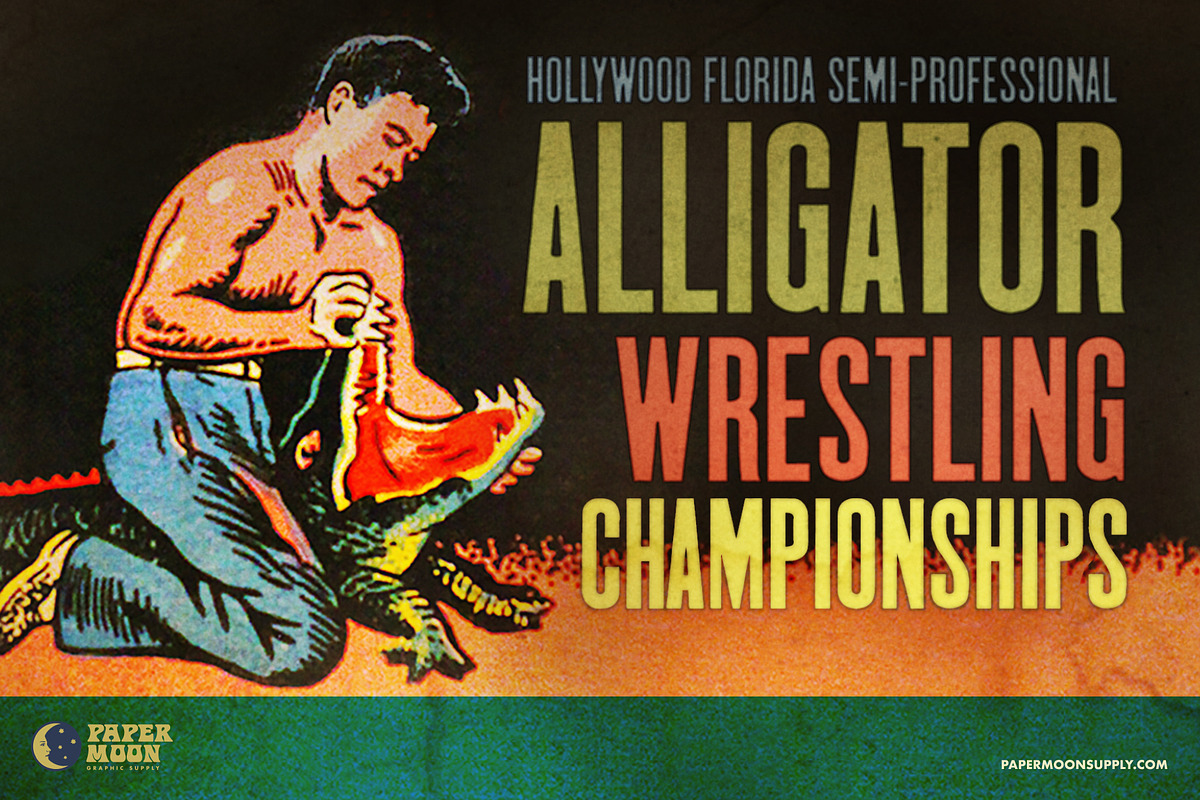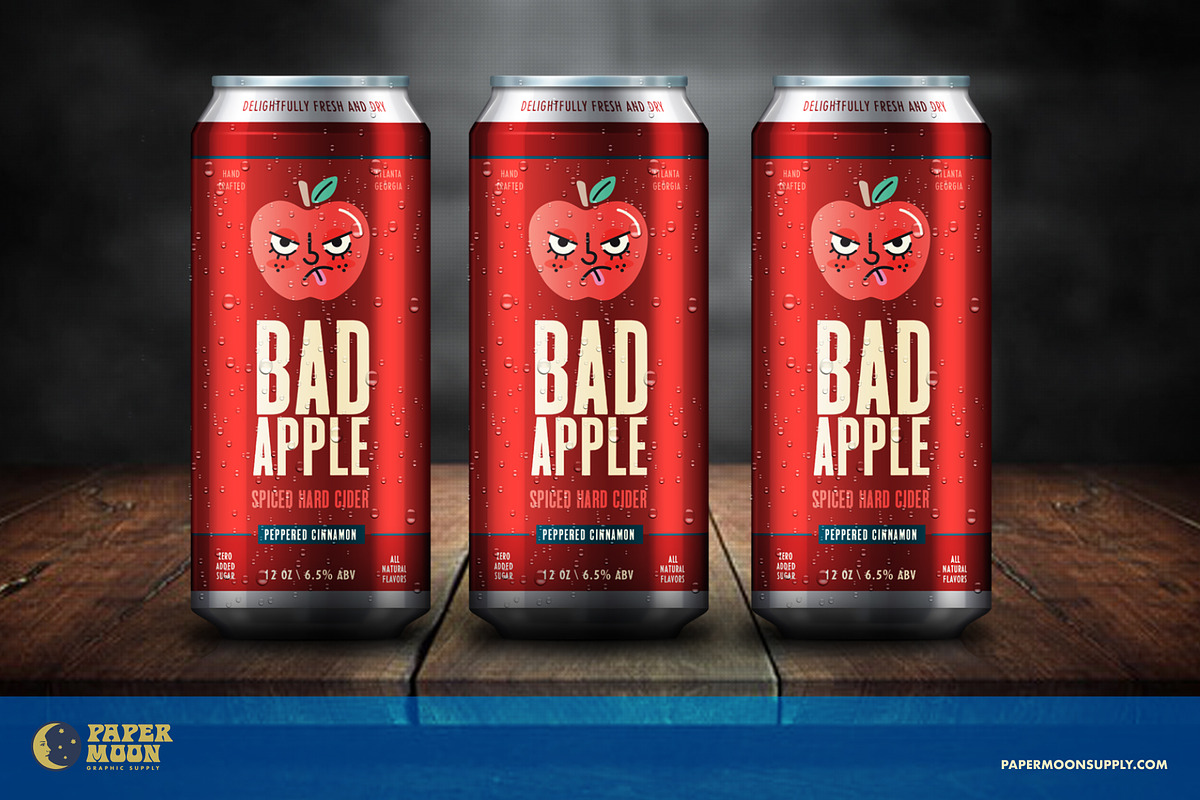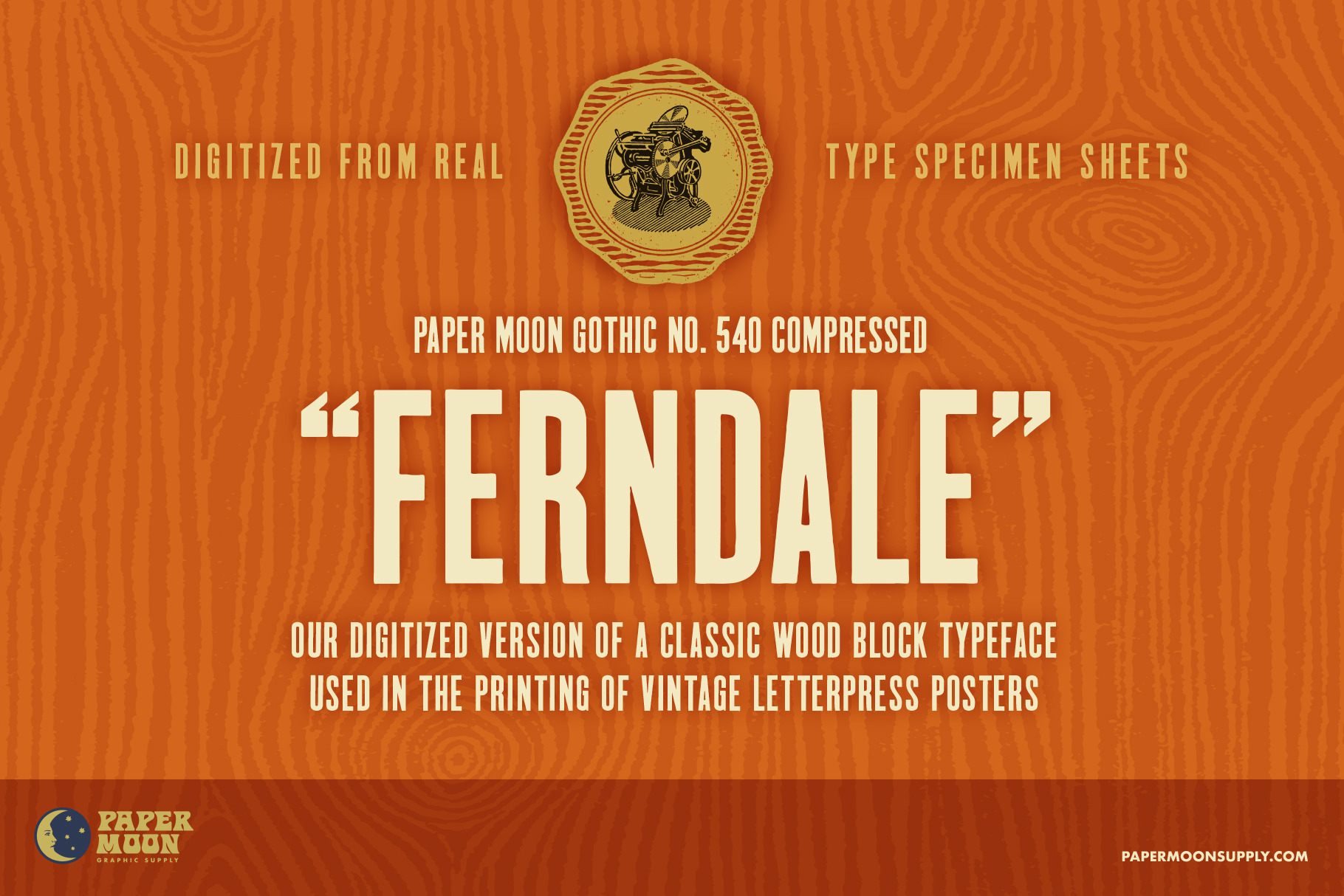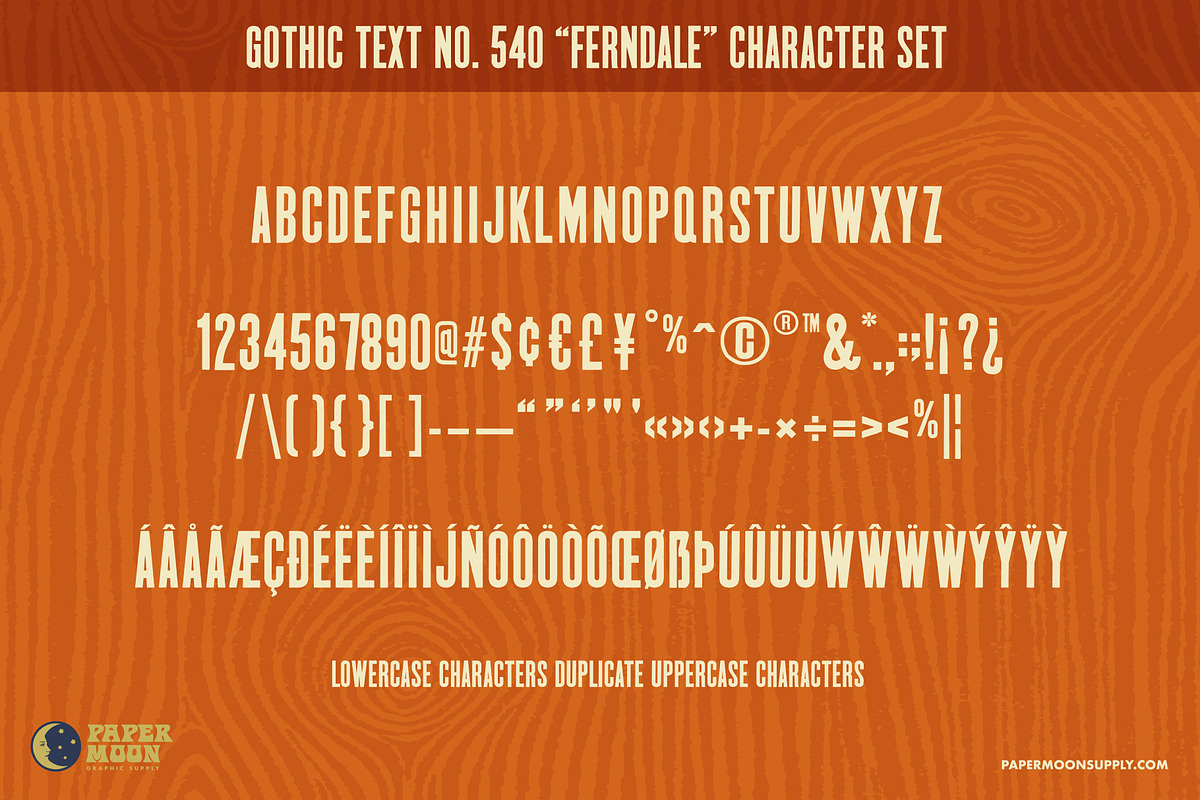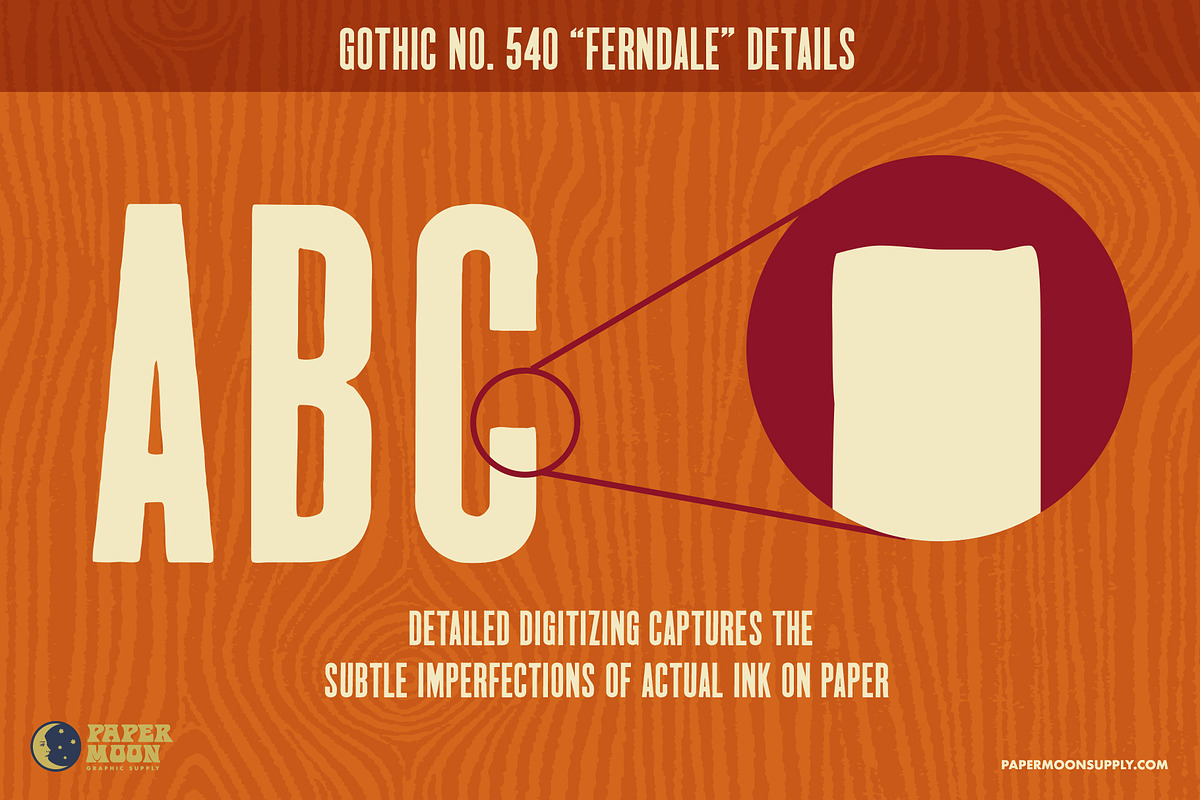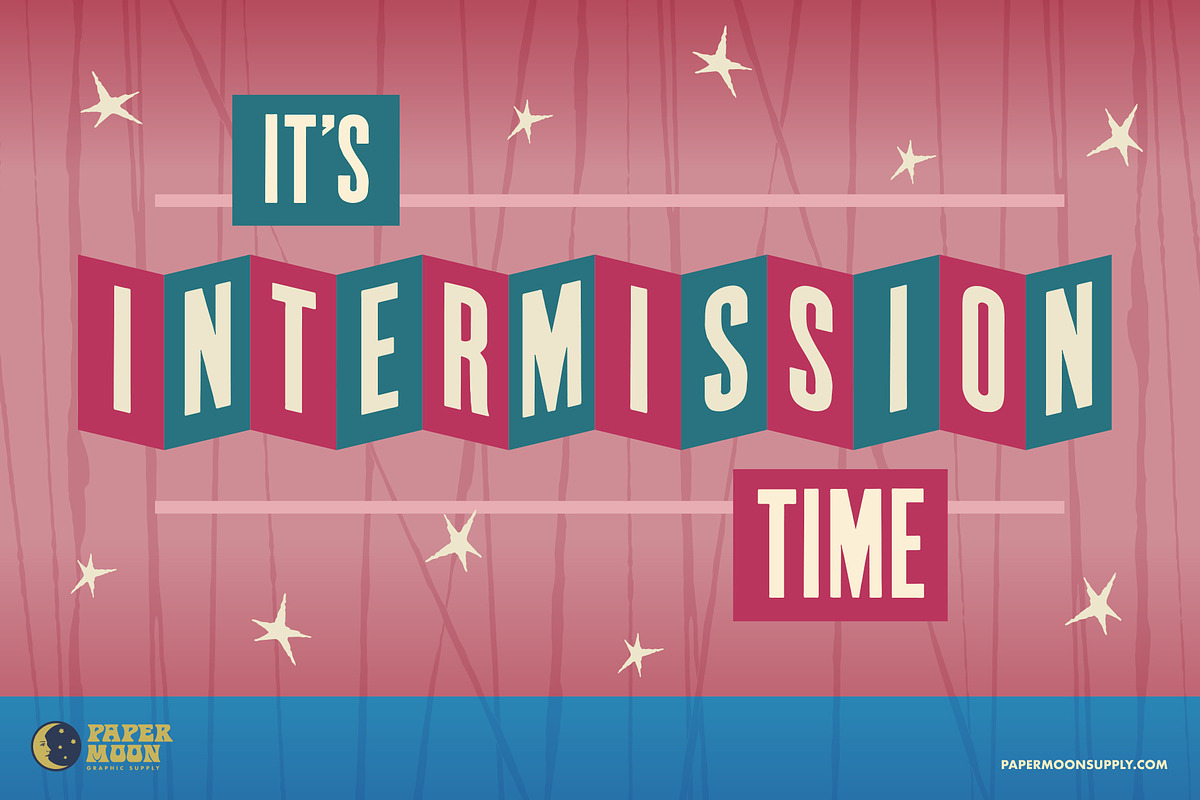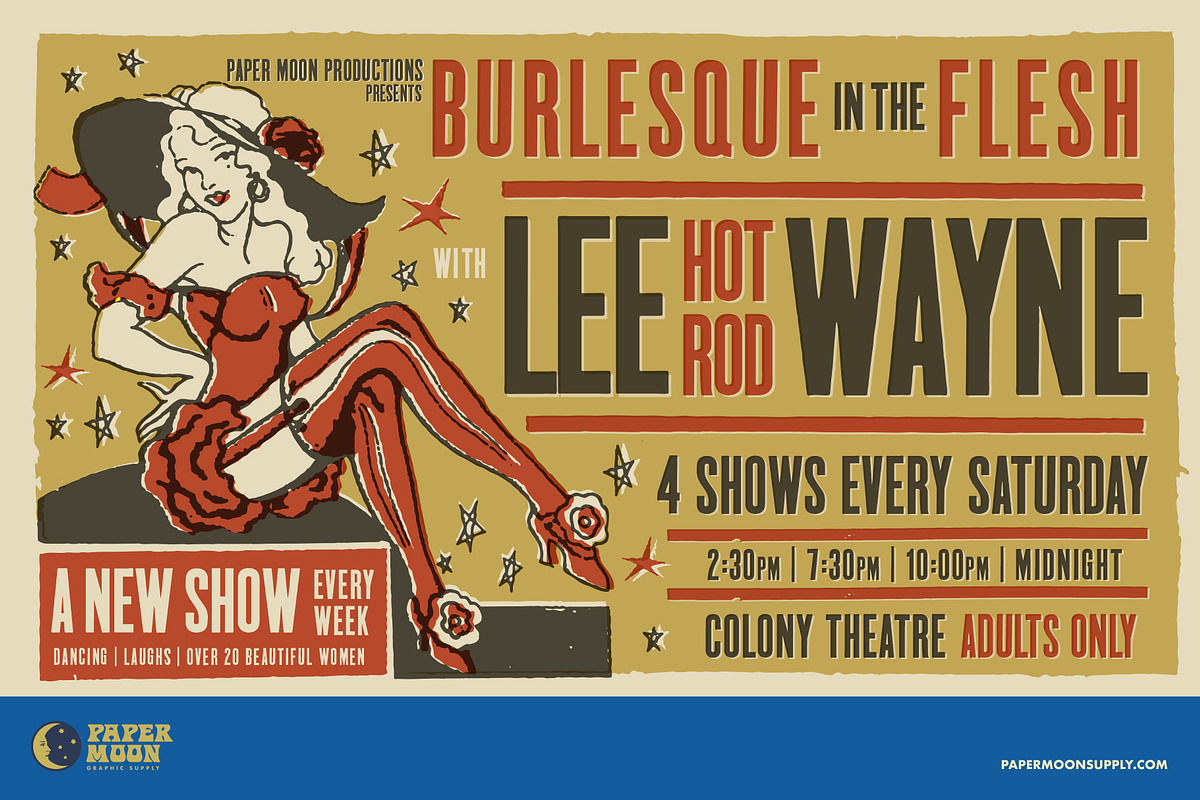
Ferndale Letterpress Font
A new digitized letterpress font seen on vintage concert posters and show prints.
Ferndale was inspired by classic hand-set wood type used on vintage letterpress concert posters, broadsides, playbills, and show prints by print-houses like Globe Poster, Enquirer Printing, and Hatch Show Print.
- Digital reproductions from actual letterpress printed specimen sheets
- Highly-detailed ink-on-paper edge reproduction
- Complete alphabet, number, and punctuation sets